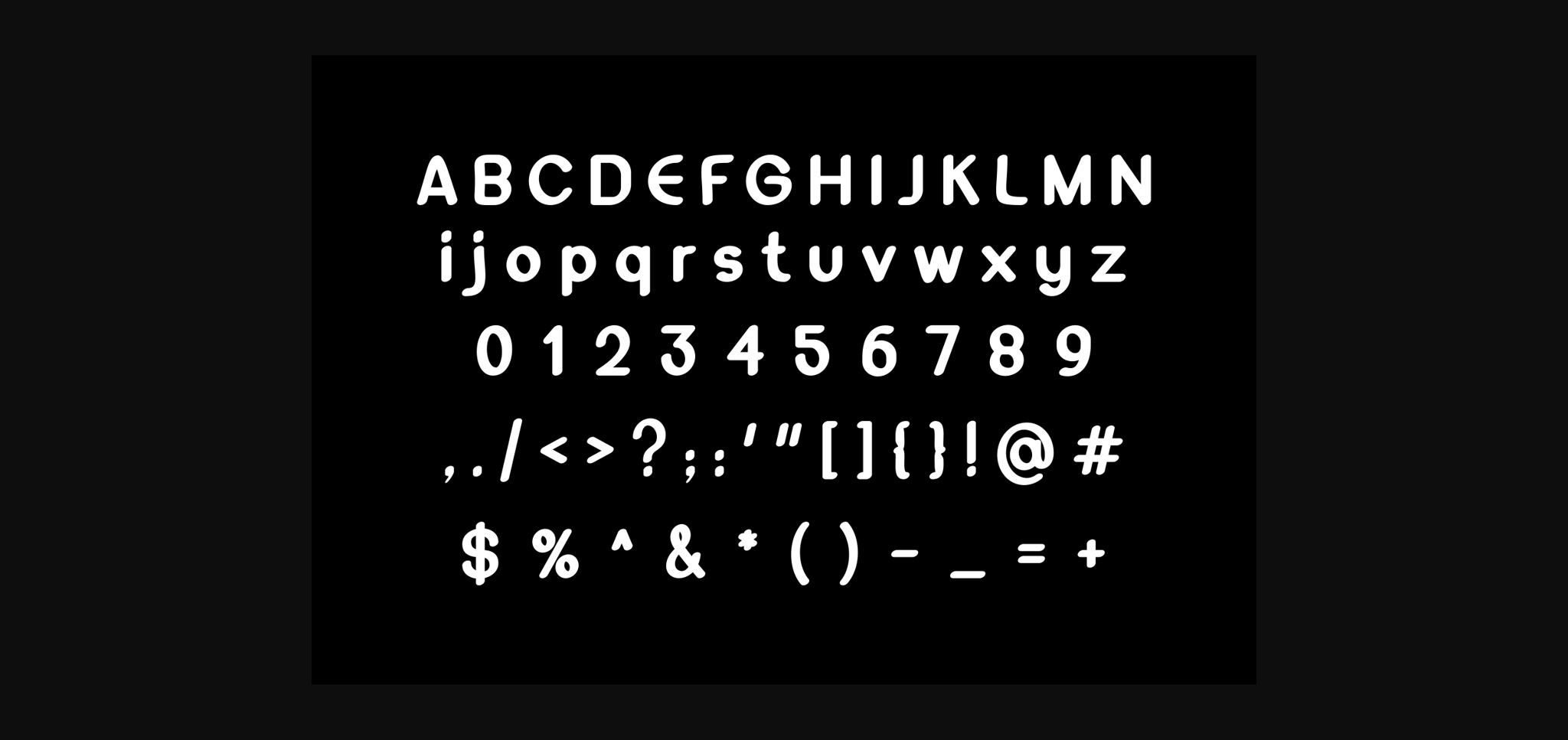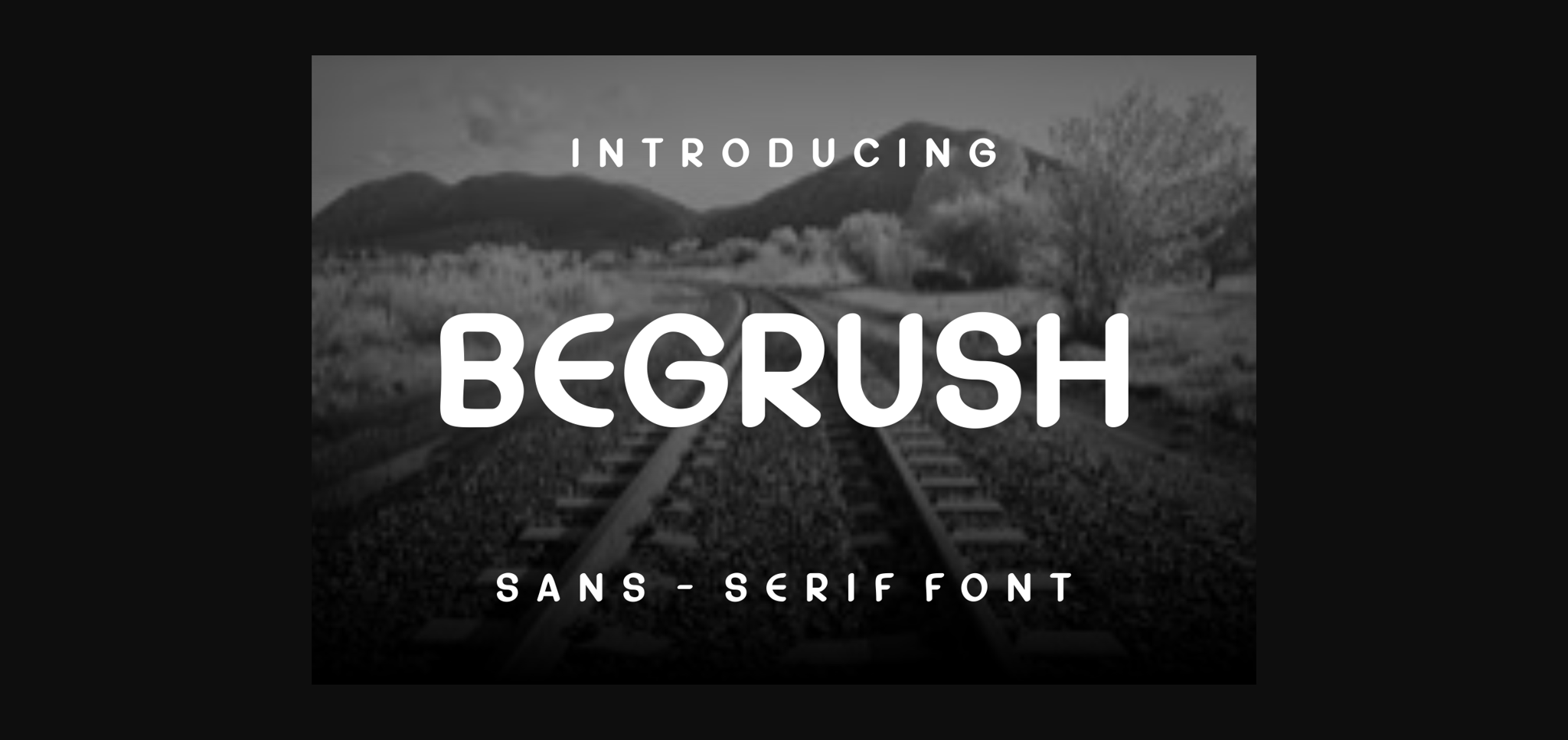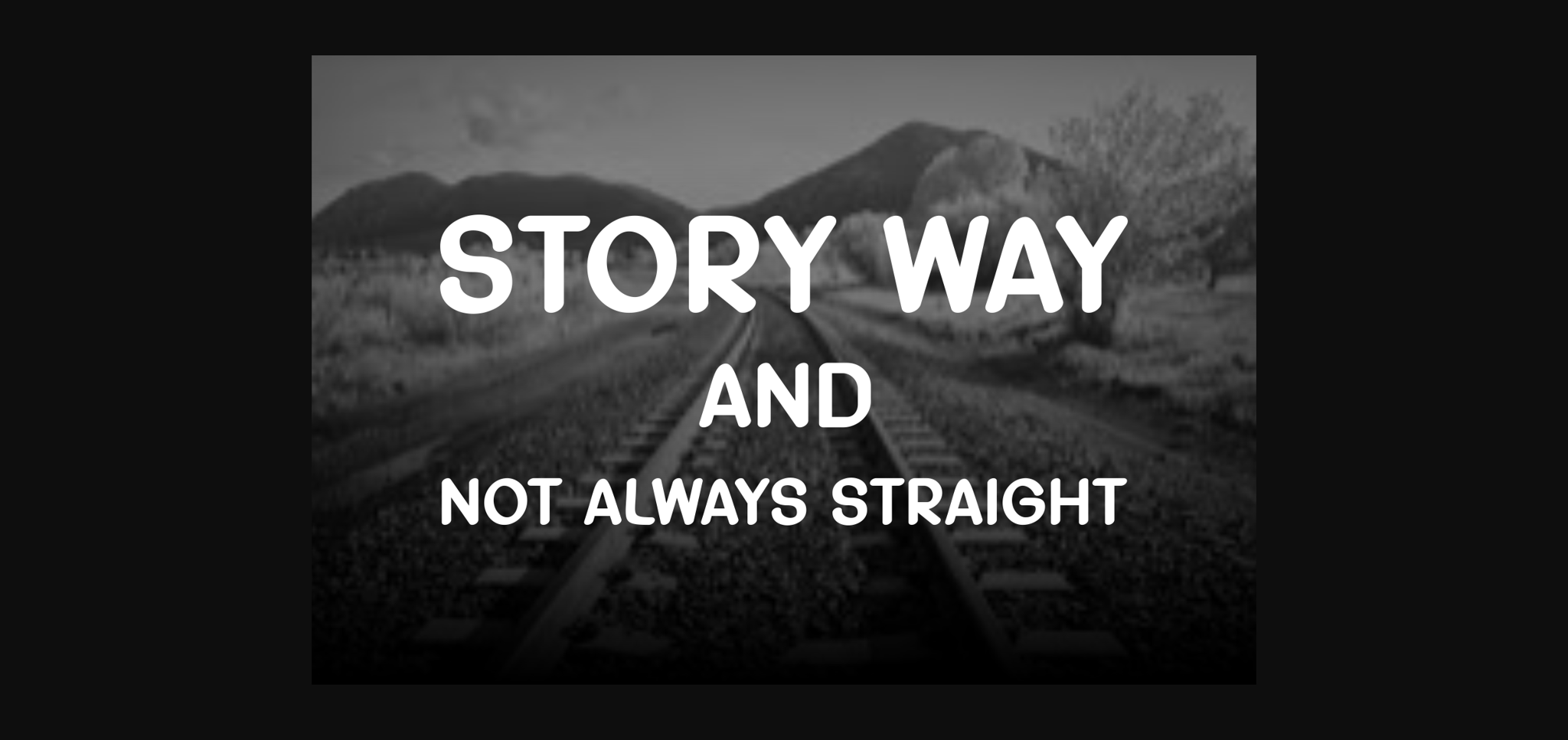
Begrush Font
About Begrush Font
Begrush is a cool and unique sans serif font. Fall in love with its incredibly distinct and timeless style and use it to create spectacular designs!